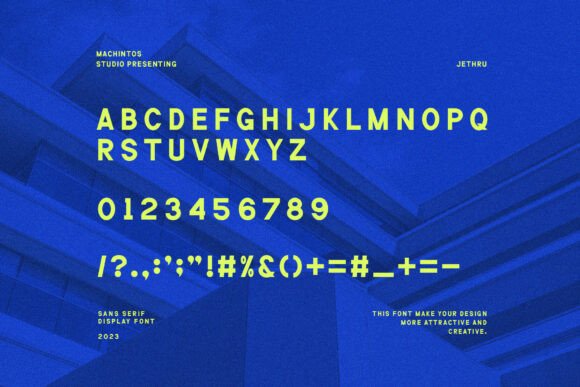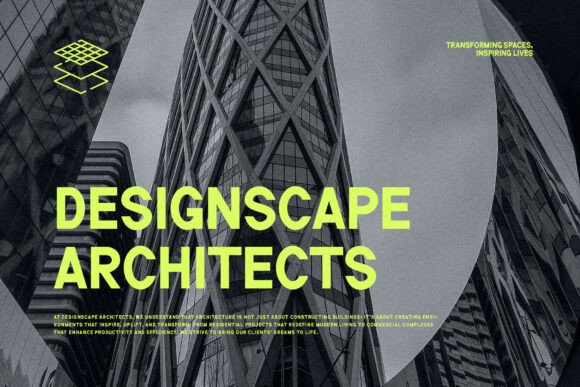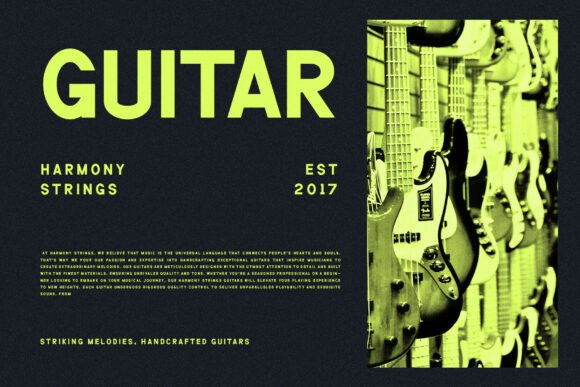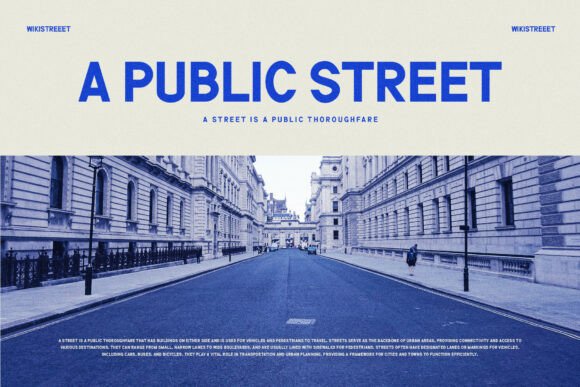
Introduction to Jethru Font
Jethru is a lovely and timeless sans serif font.
Key Features of Jethru Font
Why Choose Jethru Font?
Jethru Font offers exceptional quality and versatility, making it a valuable addition to your design toolkit. Whether you’re creating for personal projects or commercial use, Jethru Font delivers professional results.